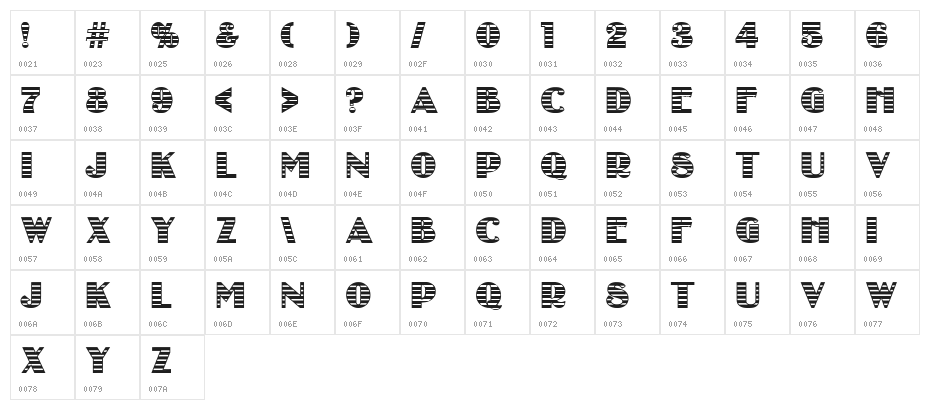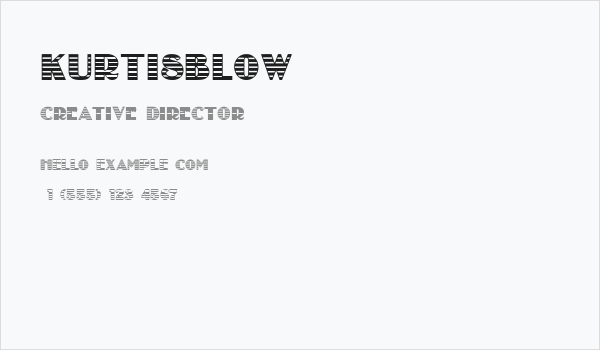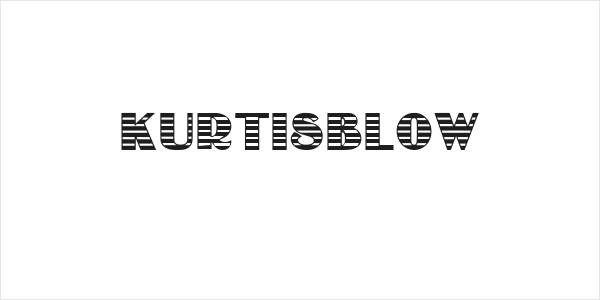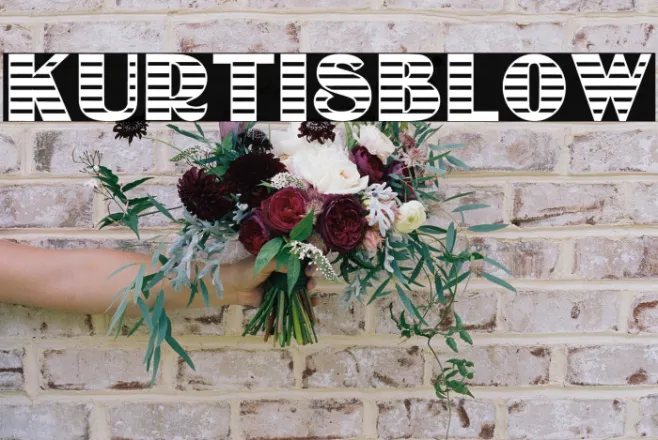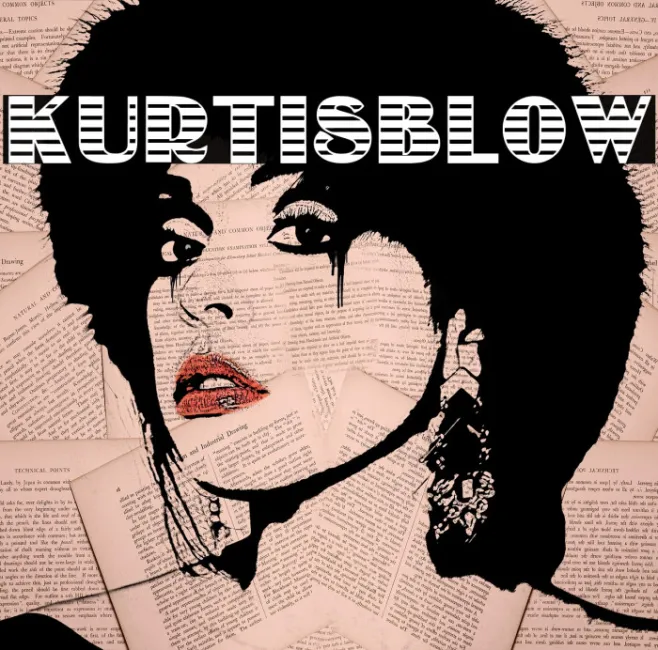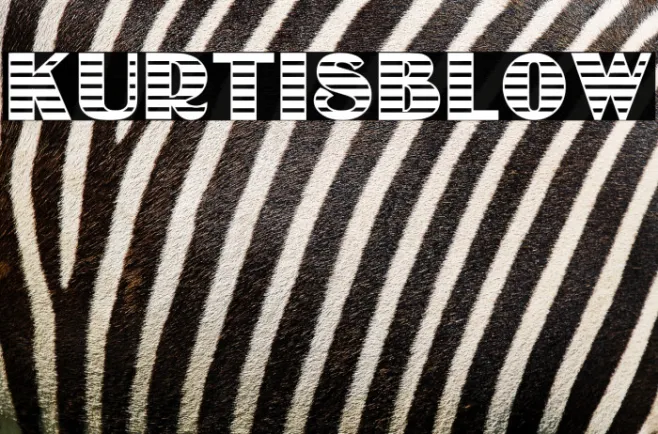
KURTISBLOW Font
KURTISBLOW Description
This font features a bold and striking design with horizontal stripes running through each character, creating a unique and eye-catching effect. The uppercase and lowercase letters maintain a consistent style, with clean lines and geometric shapes. The numbers and special characters follow the same pattern, ensuring a cohesive look across all text elements. The font's boldness and decorative nature make it ideal for projects that require a strong visual impact.